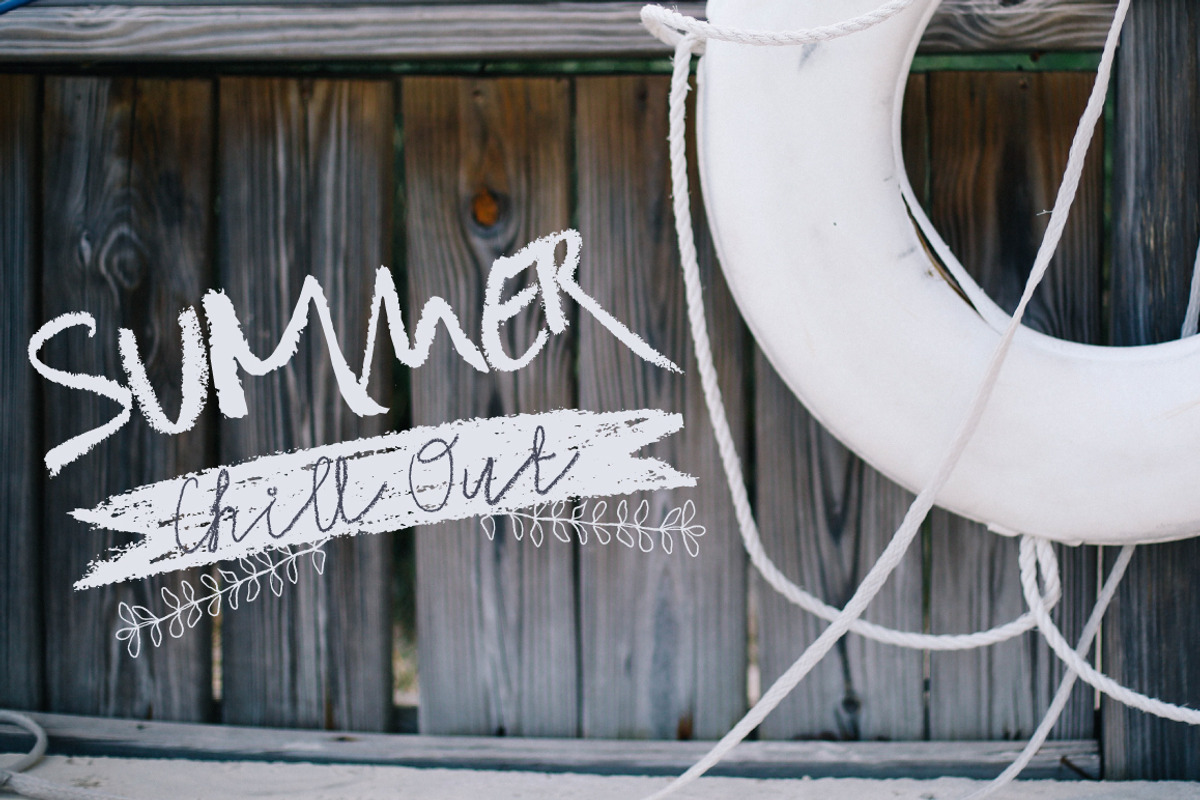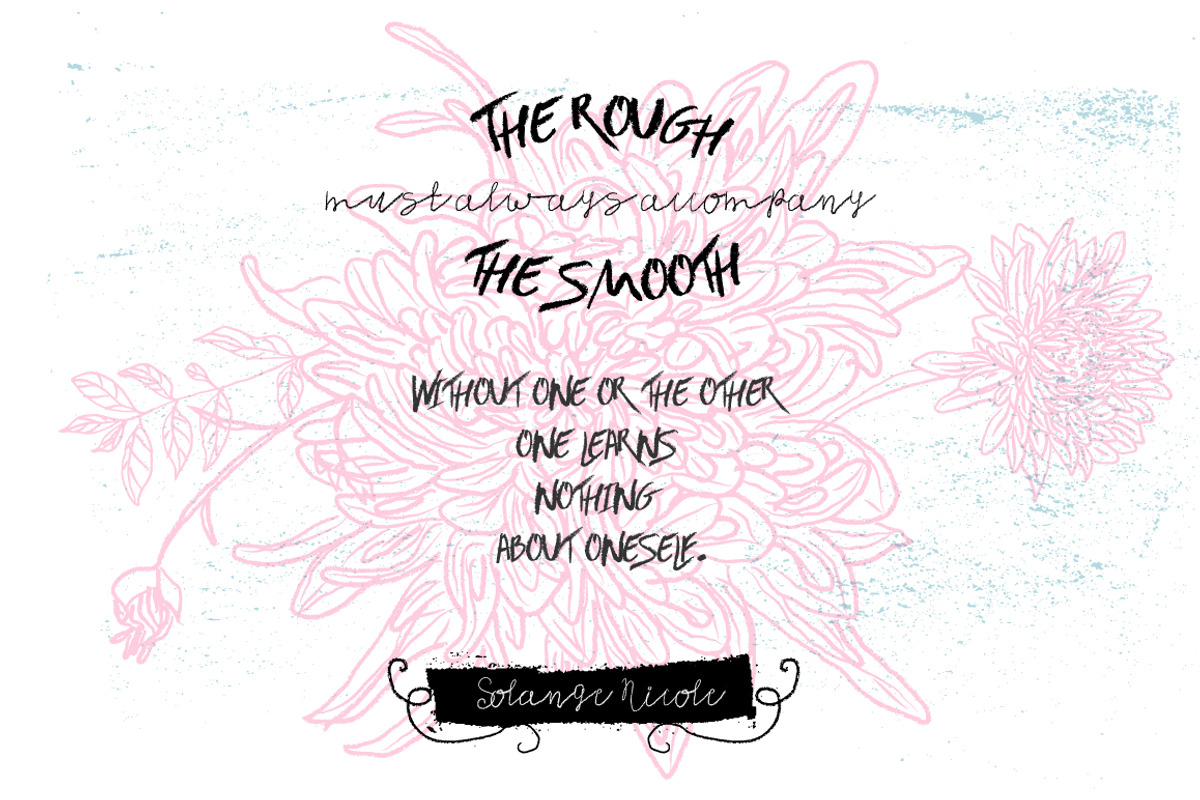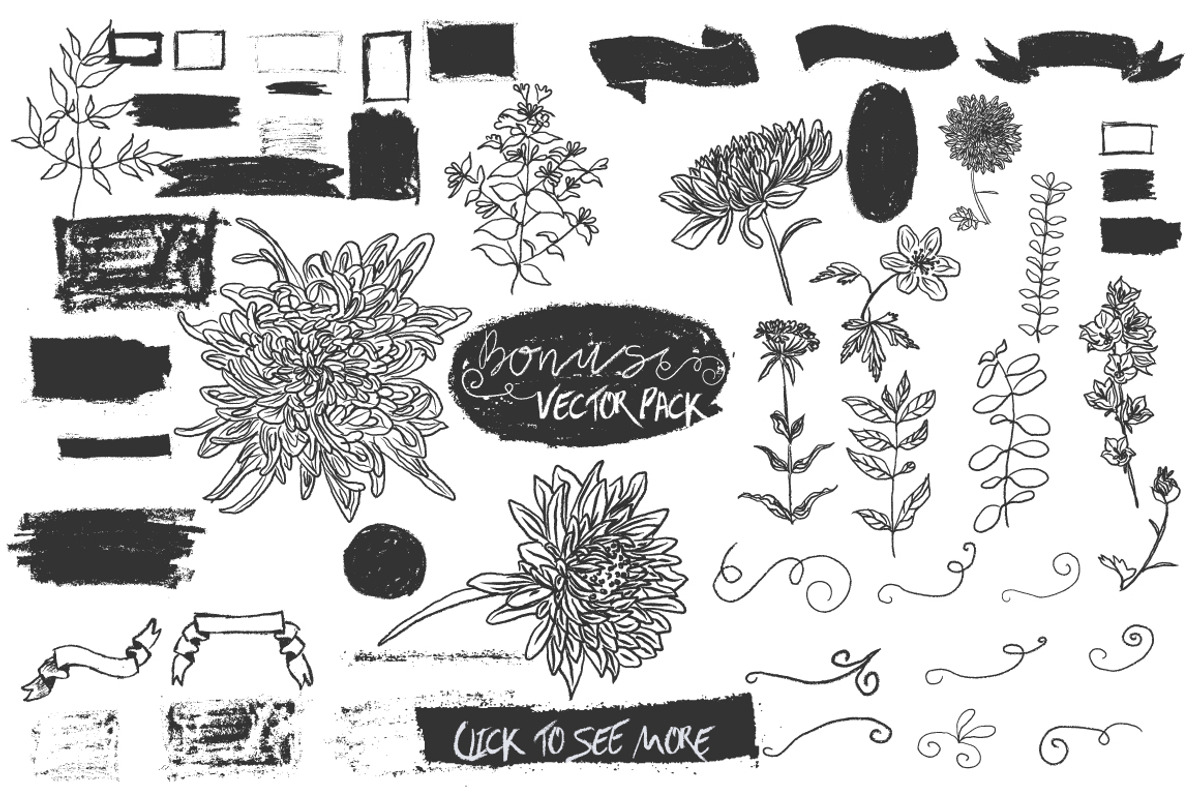
Earth Elements Typeface
Earth Elements Typeface by Anna Ivanir is a font selected for branding, posters, packaging, typography.
- Each font has uppercase, lowercase, numbers, ligatures and punctuation.
Why Earth Elements Typeface is worth a look
Earth Elements Typeface by Anna Ivanir fits naturally into Branding, posters, packaging, typography.